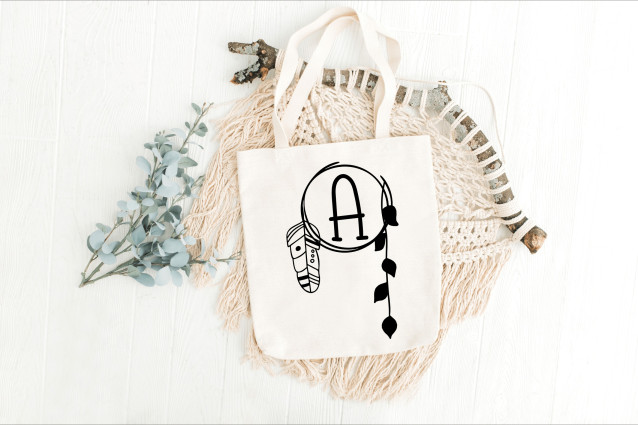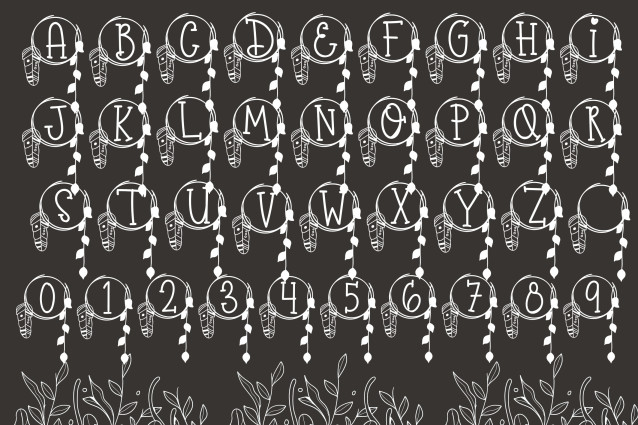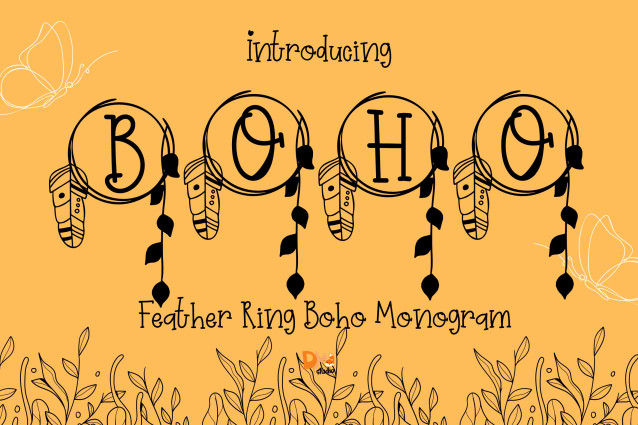
Feather Ring Boho Monogram Font
Feather Ring Boho Monogram Font is an enchanting serif monogram font featuring elegant uppercase letters encircled by hand-drawn feather wreaths. With a dreamy, bohemian vibe and organic flow, this font is perfect for wedding branding, personalized gifts, Cricut crafts, and anything that needs a touch of rustic elegance.